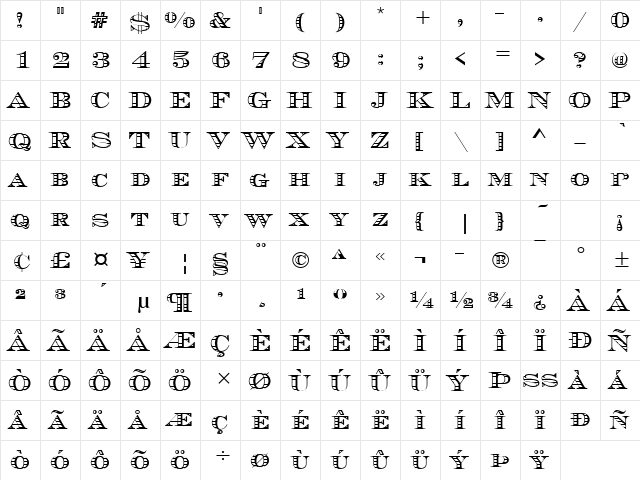
ChevalierStrSCD Regular Font Preview
ChevalierStrSCD Regular
ChevalierStrSCD Regular Font Details
Design Context for ChevalierStrSCD Typeface
ChevalierStrSCD is a composed and adaptable typeface that performs quietly and consistently across a wide range of design contexts.